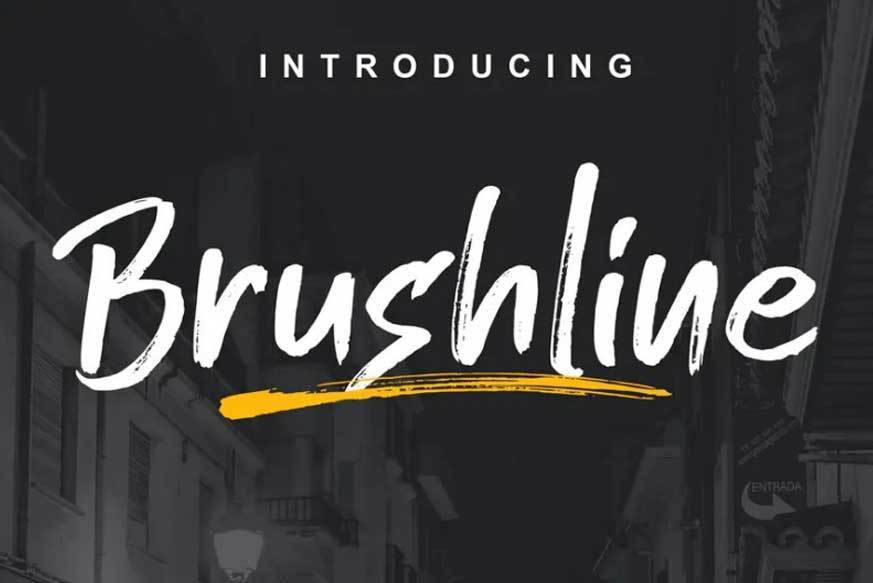
Brushline Font
Brushline is natural handmade font, from paper to digital and then we digitized it carefully.
This type of font is perfect for you who design something for advertisement, clothing, music album or logo.